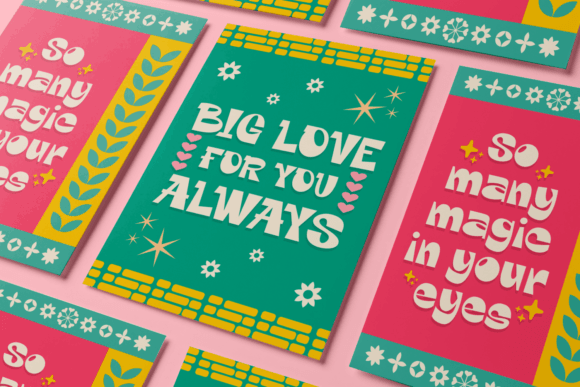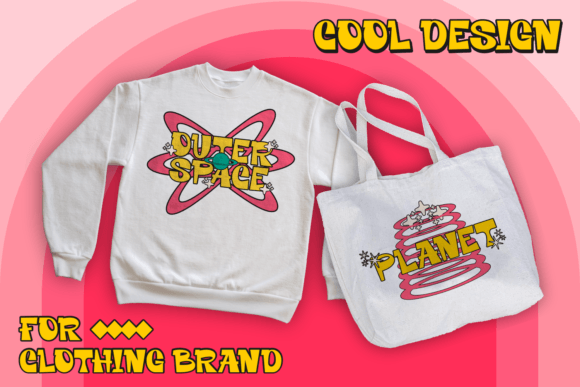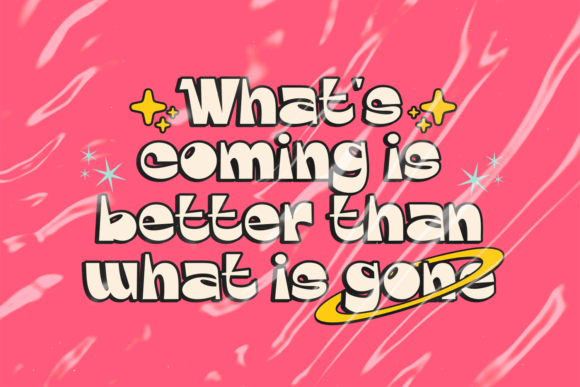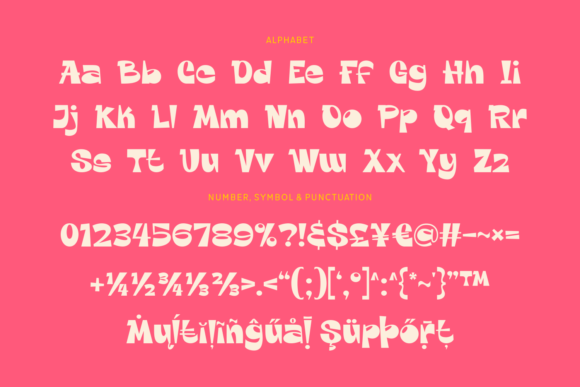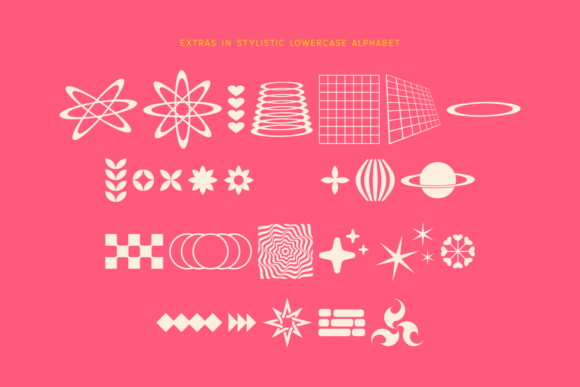
Introduction to Restco Font
Have you ever stumbled upon a font that makes your design project come alive? For me, that moment was when I discovered the Restco Font. I was working on a creative project, and I wanted to add a touch of whimsy and playfulness to my design. As I browsed through font libraries, I stumbled upon Restco, and I knew I had found the perfect match.
The Restco Font is a true gem for designers, offering a unique blend of fancy and fun letterforms that radiate joy and vitality. With its ornate flourishes and meticulous attention to detail, each character is a masterpiece. Whether you’re designing an invitation, packaging, or any other project that requires a touch of elegance, the Restco Font is an invaluable design resource.
Key Features of Restco Font
- High-quality design resource suitable for various creative projects
- Designed to be scalable, ensuring optimal readability at various font sizes and resolutions
- Comes in a range of styles and weights, catering to diverse design needs
- Perfect for use in logos, branding materials, and other design elements
Honest Review: Restco Font
- ✨ The Restco Font has a beautiful, high-quality design that makes it perfect for creative projects.
- ✨ It has a transparent background, which makes it easy to use on any design resource.
- ✨ The font is highly versatile and can be used in a variety of contexts, from headings to body text.
- ⚠️ The font may not be suitable for very small text sizes, as the characters can become blurry.
- ⚠️ Some users may find the font’s style a bit too bold, so it’s worth experimenting with different sizes and styles to find the perfect fit.
Overall, I’m impressed with the Restco Font and would recommend it to designers looking for a high-quality, versatile font for their creative projects.
Tips for Getting the Most Out of Restco Font
To get the most out of the Restco Font, use it on a transparent background to create a clean and minimalist design. You can also pair it with other high-quality design resources to create a unique and creative project.
The Restco Font is ideal for use in logos, branding materials, and digital graphics. Its high quality and versatility make it a great design resource for creative projects.